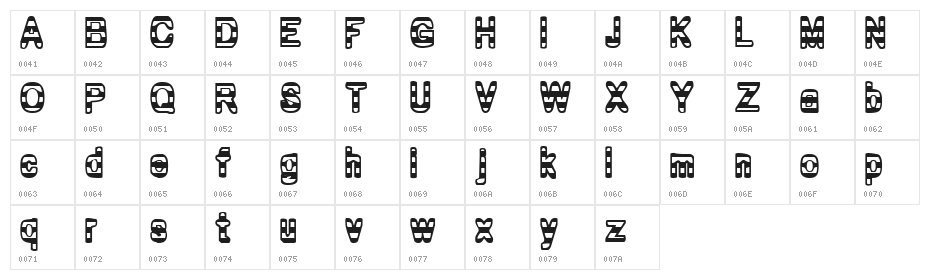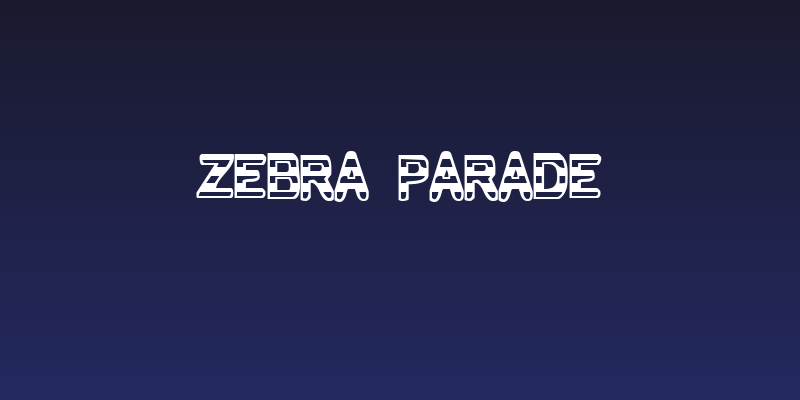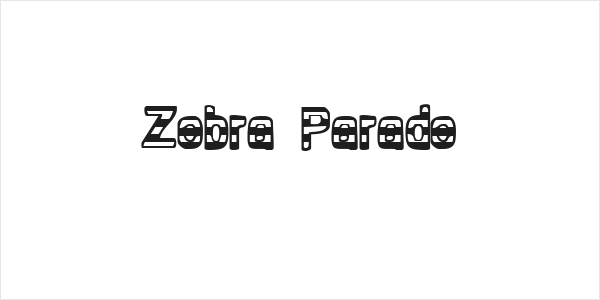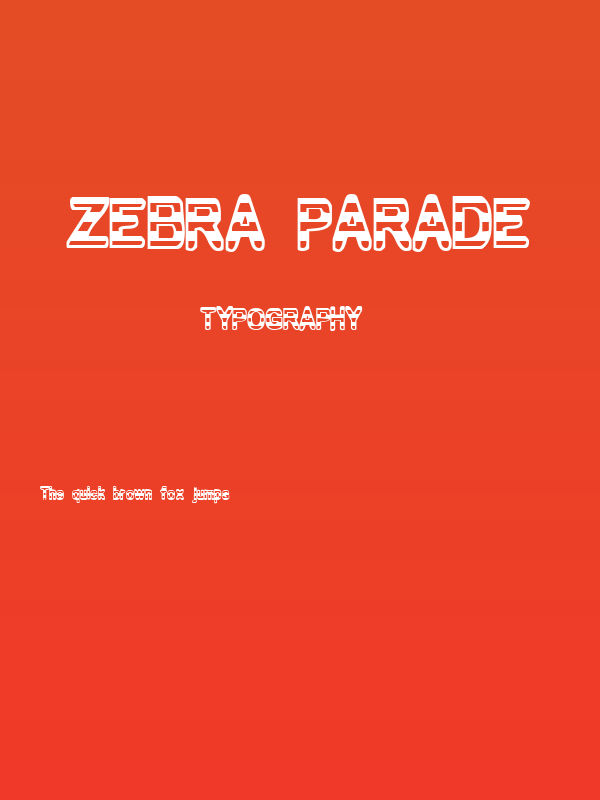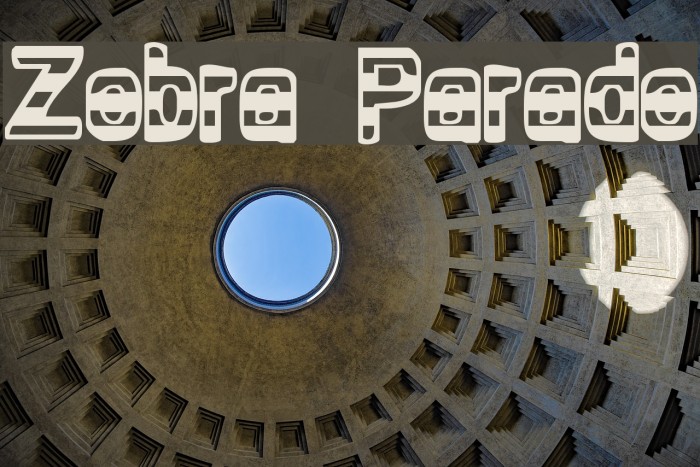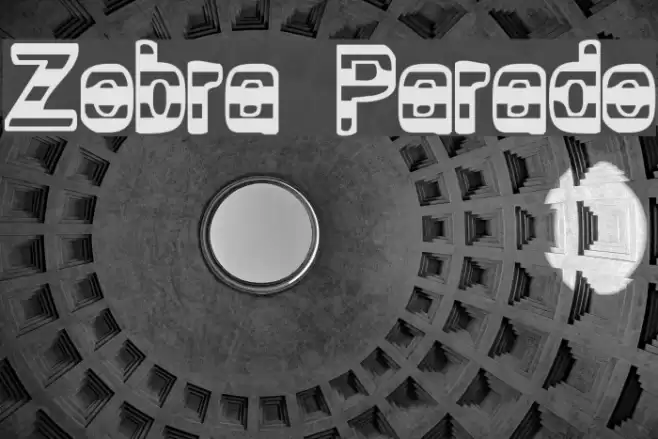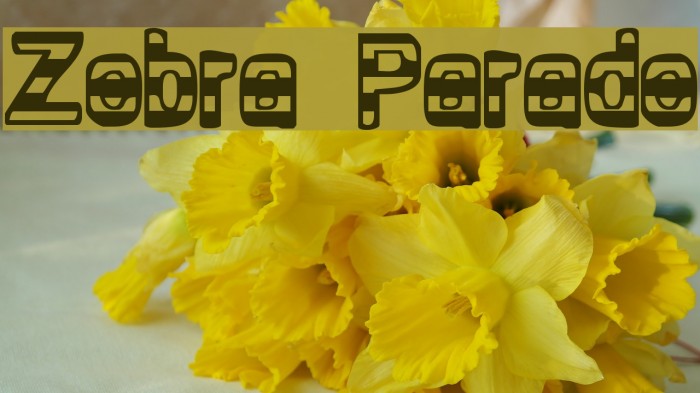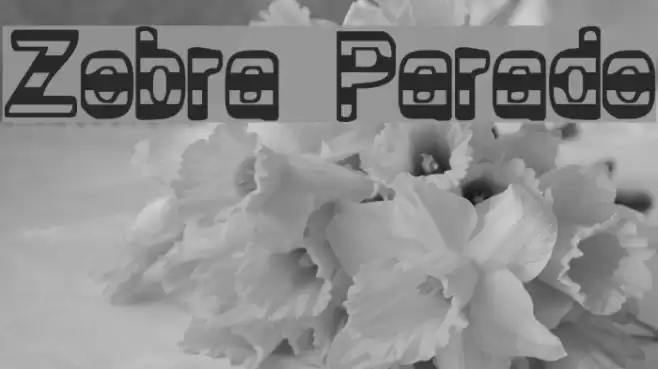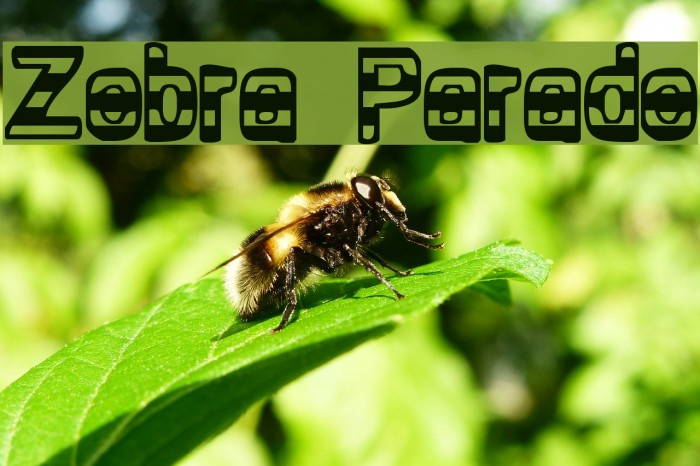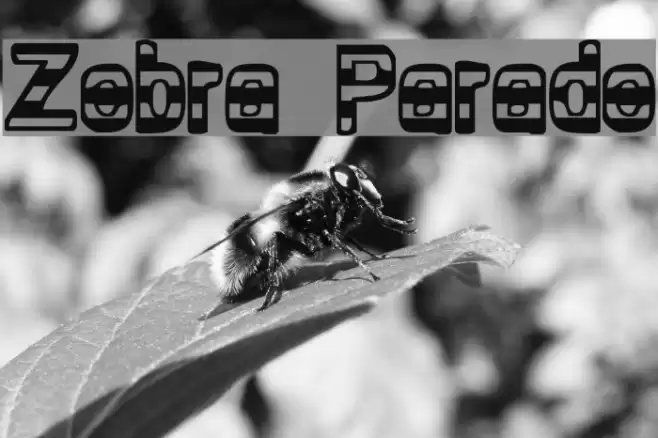
Zebra Parade Font
| Vorgeschlagene Projekte | Ideal for children's book covers, playful posters, party invitations, and branding for fun-oriented products. |